TypeTalk: The Best Fonts for Newsprint
Q. Is there a way to compensate for what happens to type when it’s printed on different papers, especially on newsprint?
A. Depending on the printing technologies and paper you choose, ink will spread more or less. That can dramatically affect the look of a printed piece’s type, especially text settings. Even the climate and degree of humidity can have an effect on ink spread!
The type foundry Hoefler & Frere-Jones (H&FJ) has addressed this issue with the ingenious graded font families Chronicle Text and Mercury Text. Both families are available in four grades, which are versions of the same typeface that are progressively more robust to accommodate different applications and different degrees of ink squeeze on press.
All of the grades in these two families use the same set of character widths, so you can switch grades without affecting the flow of the copy. “This ability to swap out fonts not only gives designers real flexibility in responding to press tests, but it allows sister publications that use different grades to share the same content,” says Jonathan Hoefler.
The four grades of Chronicle Text in use:
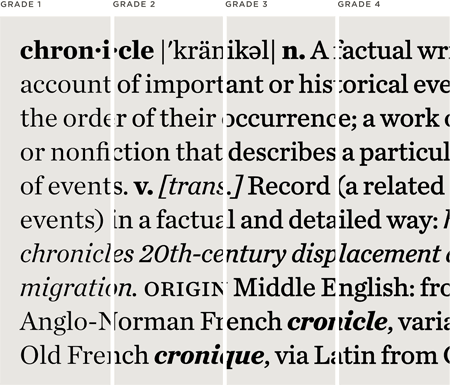
The four grades of Chronicle Text become progressively more robust while maintaining the same character widths: